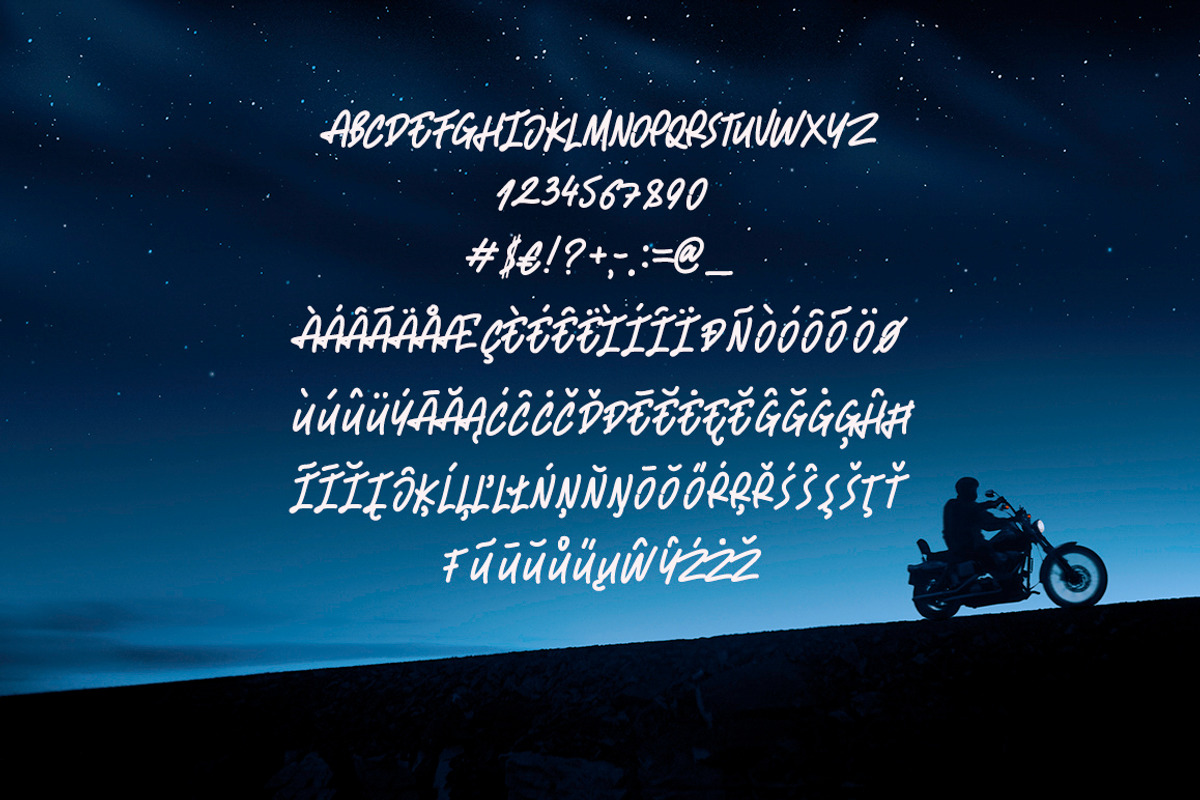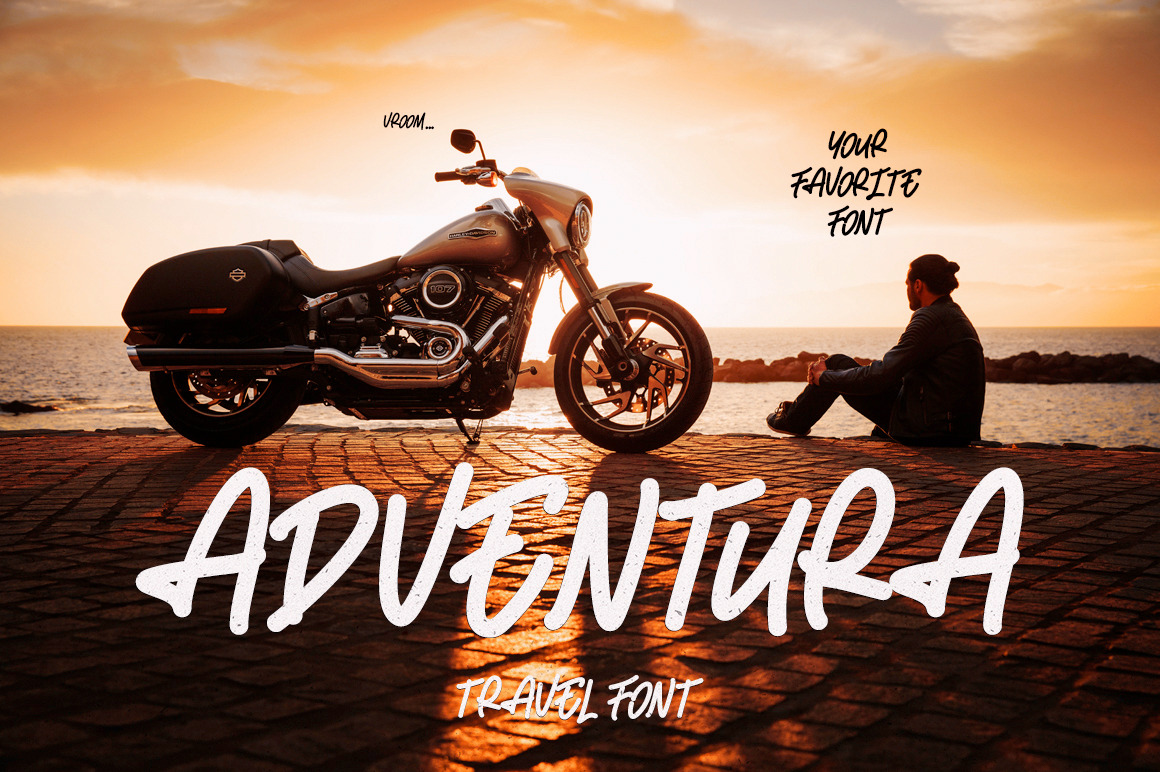
Adventura Handwritten Font
๐ข Cool Monoline Script - ADVENTURA! ๐ข
๐๐ป This handwritten font is best weapon for travel photographers, filmmakers and designer who love travel and adventure vibes
The font is great for cover design, videos, publishing and editorial design! It is also perfect for retro, vintage logo designer since font provides unique letter forms!
โค๏ธ FEATURES
Upper Cases
Punctuations
Some Extra Symbols